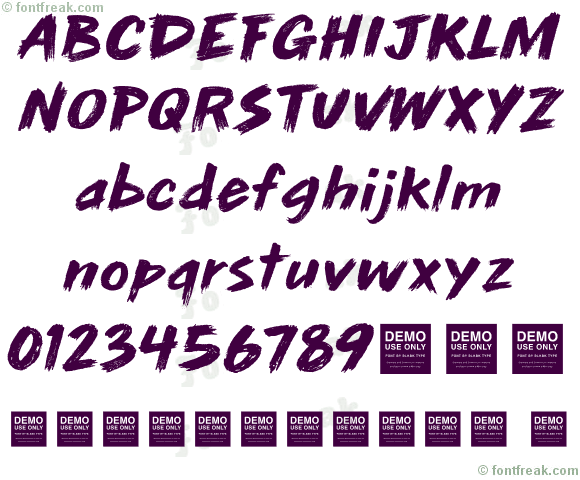
Sun Ray
About Sun Ray
The Sun Ray font by BLKBK Fonts is a captivating display typeface that embodies a lively and artistic flair. As a decorative font, it features a unique brush script style that conveys a sense of warmth and creativity. The strokes have a varied weight, with bold, expressive lines that create an engaging contrast, making it perfect for projects that require an eye-catching typography. The spacing is thoughtfully designed, ensuring that each character stands out while maintaining readability.
This font is particularly well-suited for a range of creative applications. It shines in wedding invitations that aim for a casual yet elegant aesthetic, providing a personal touch that resonates with couples. Additionally, the Sun Ray font is ideal for movie posters, especially in genres that celebrate adventure or romance, where its dynamic style can capture the essence of the film. Restaurant menus can also benefit from the font's inviting appearance, making dishes feel more appealing and adding character to the dining experience. Content creators on social media will find it a fantastic choice for eye-catching graphics and promotional materials, allowing them to express their brand's personality effectively.
Target audiences for the Sun Ray font include graphic designers, small business owners, and content creators looking to enhance their visual communication. Its unique style can help brands stand out in a crowded marketplace, making it a valuable asset for anyone in need of distinctive typography.